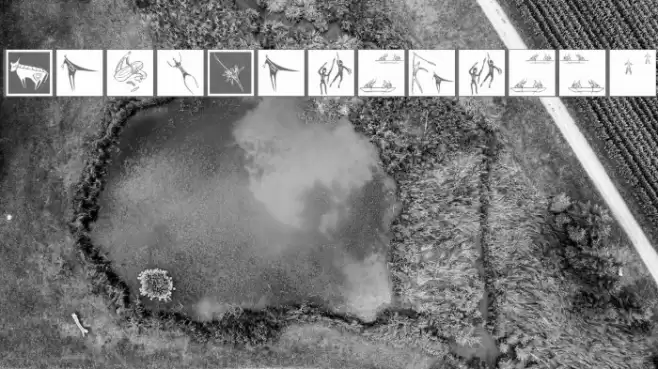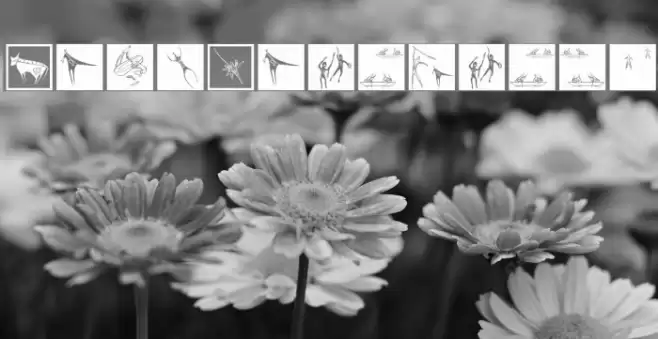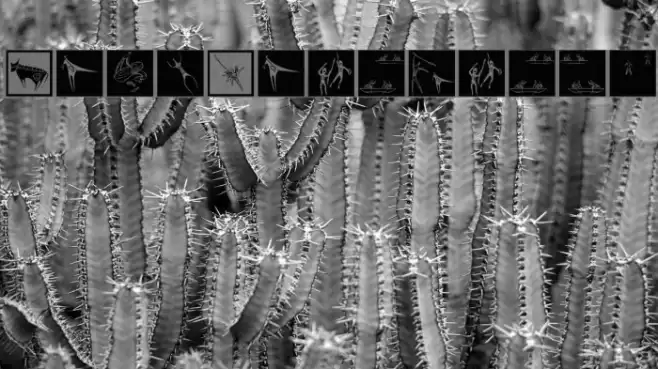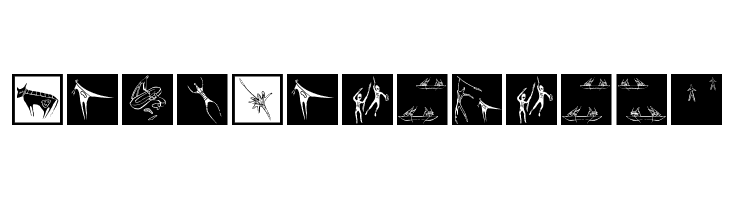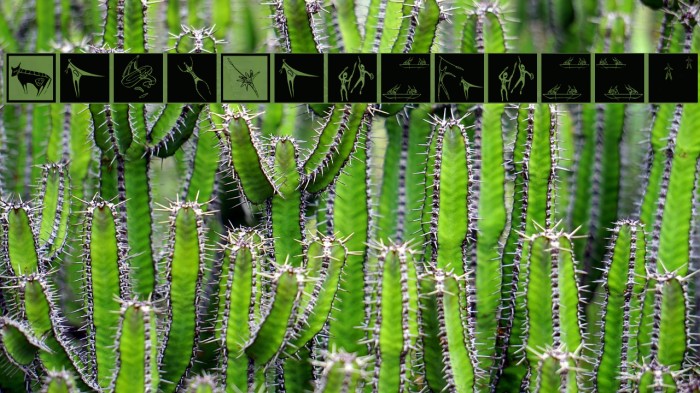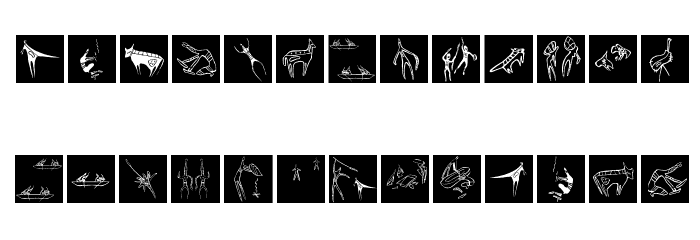
CavePaintings Font
CavePaintings Description
This is not a traditional font but rather a collection of cave painting-style illustrations. Each character is represented by a unique pictograph, reminiscent of ancient rock art. The images depict various animals and human figures in dynamic poses, capturing a sense of movement and storytelling. The style is primitive yet expressive, with bold lines and minimal detail, evoking a sense of history and cultural significance. The use of black and white contrast enhances the visibility of each pictograph, making them stand out distinctly against their backgrounds.
A collection of cave painting-style pictographs with expressive, bold lines from Uncategorized fonts.
- Proposed Projects: Ideal for educational materials on ancient history, cultural exhibitions, or artistic projects seeking to incorporate prehistoric themes.
- Overall Style: Primitive, Historical
- Use Case: Artistic projects, Educational materials